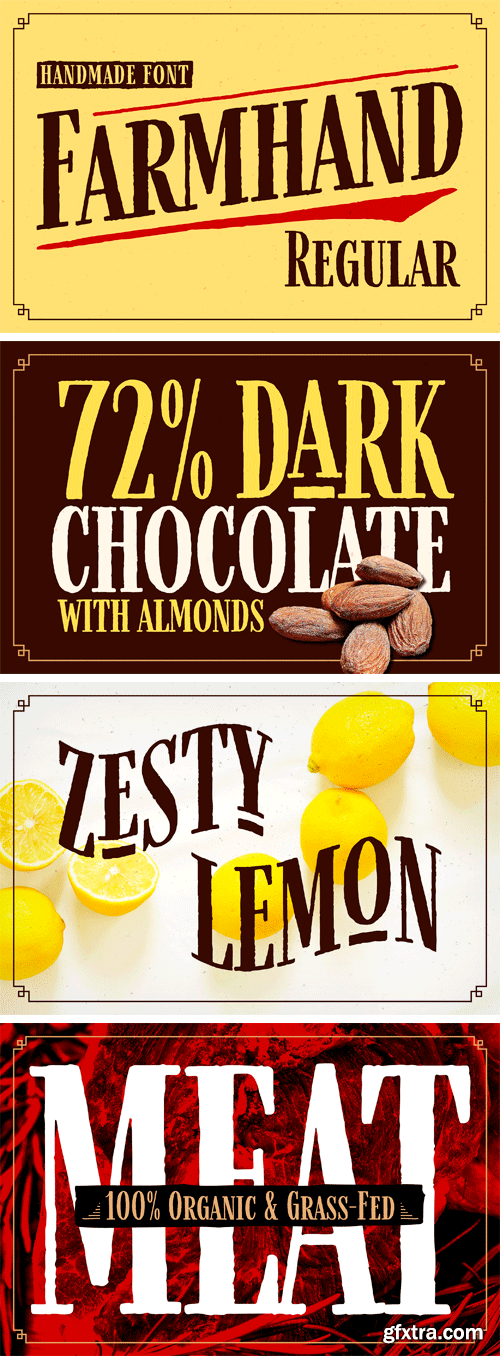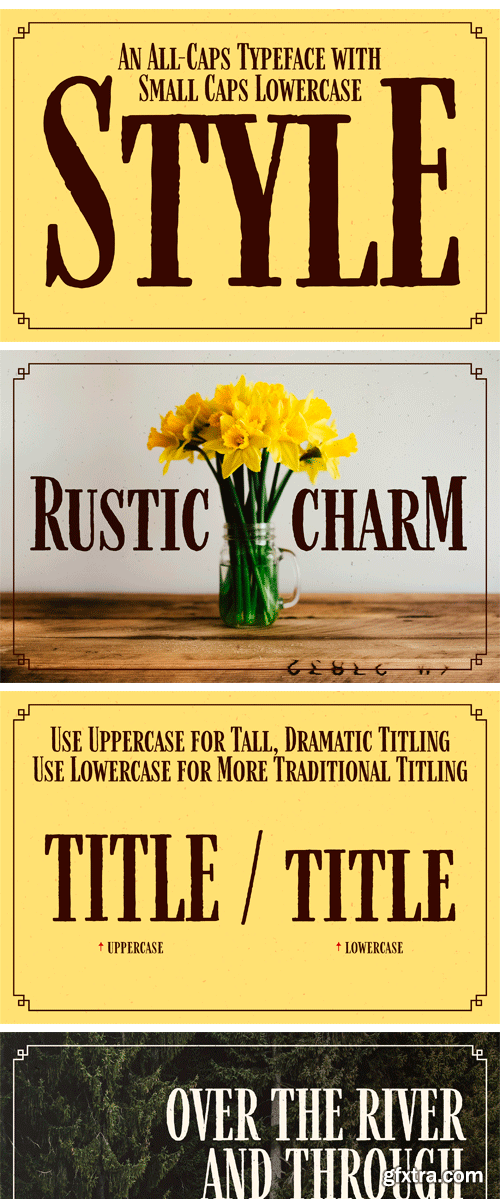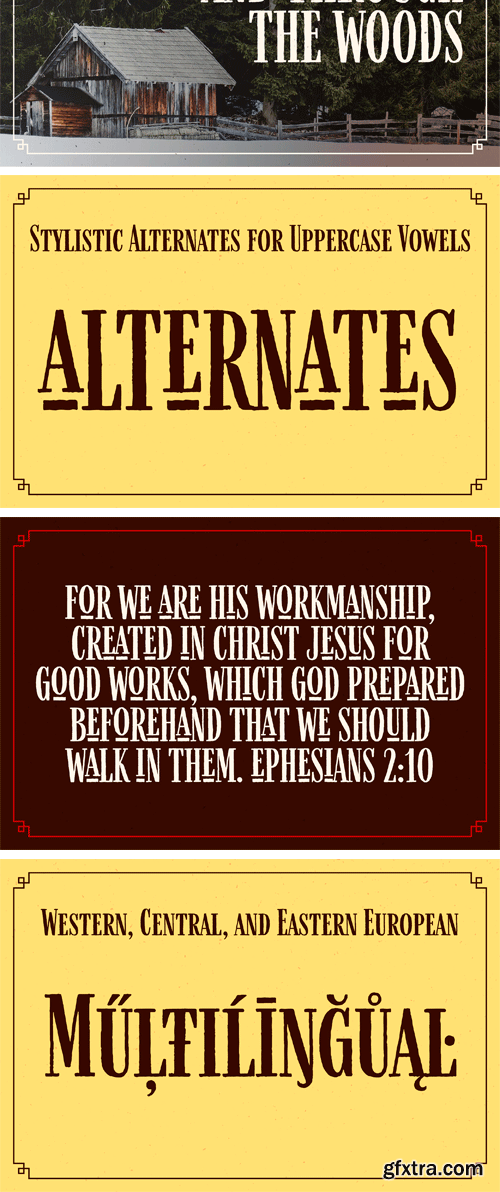
CM - Farmhand Regular Font 2422951
Farmhand Regular is a textured, hand drawn, condensed serif font suited for display titling. An all-caps typeface with individually drawn small caps for lowercase (they are not just scaled down copies of the uppercase characters). Experiment by mixing and matching the casing for a variety of titling effects. Great for packaging, branding, headlines, etc.